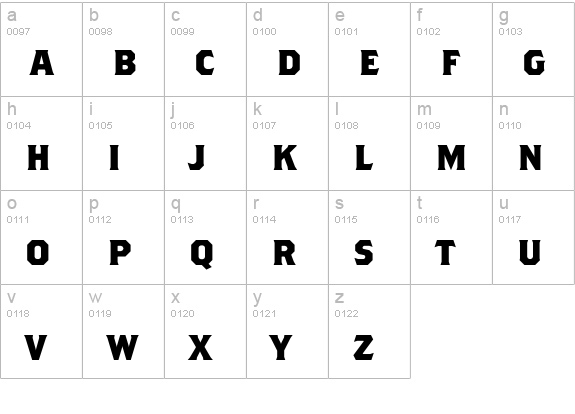
BrothersBold font is a modern and versatile typeface that exudes confidence and strength. Its bold and impactful design makes it perfect for headlines, titles, and branding projects that require a strong visual presence. The font features clean lines and a bold weight that commands attention, while still maintaining a sleek and contemporary feel. Whether you're looking to make a statement with your design or simply want to add a touch of boldness to your project, BrothersBold font is the perfect choice. And the best part? It's completely free to download at FontsMarket.com, making it accessible to designers and creatives of all levels. So why wait? Download BrothersBold font today and take your designs to the next level with its powerful and striking aesthetic.